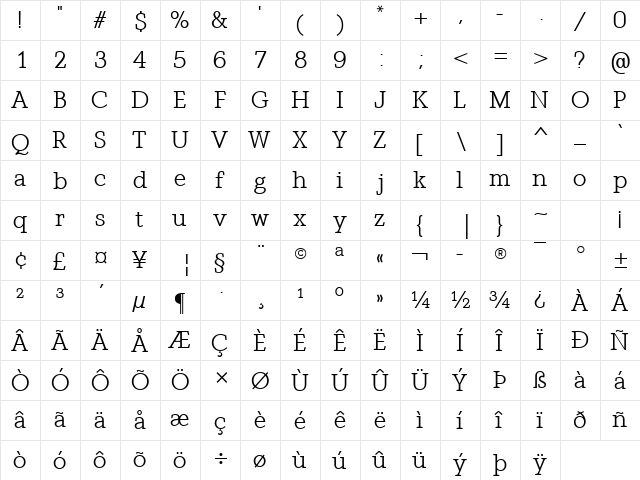
Graphos Regular
Design Context for Graphos Typeface
Graphos offers clean, dependable letterforms without strong stylistic allegiance, making it a practical choice for designers who need flexibility.